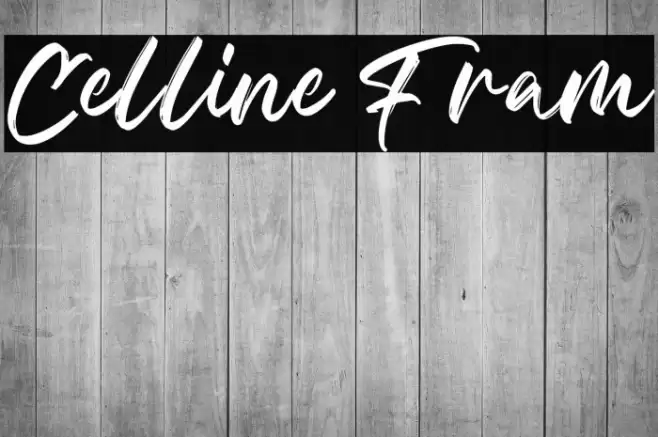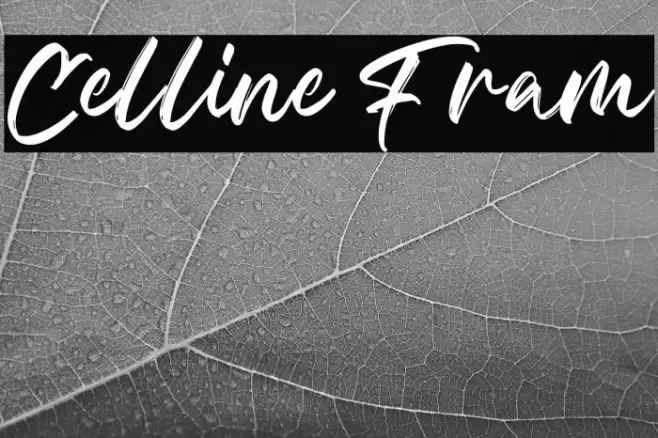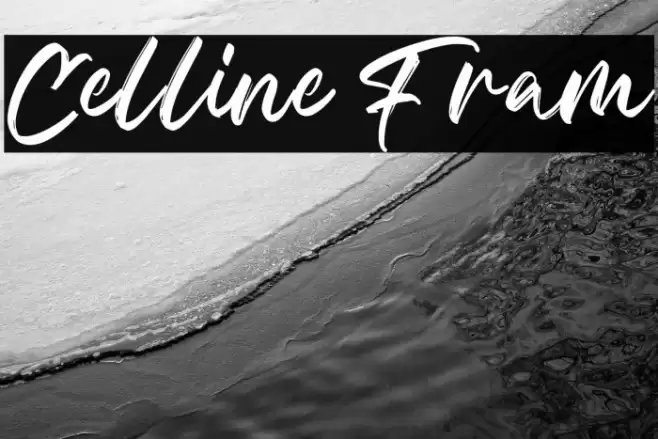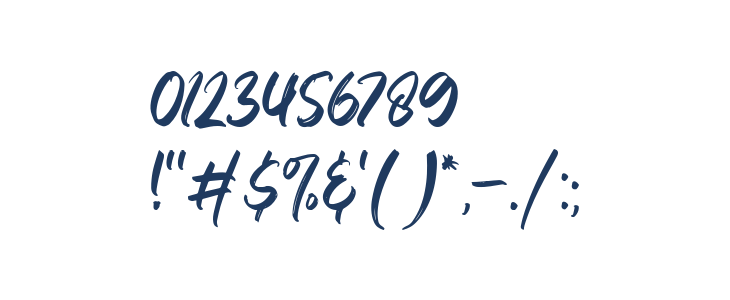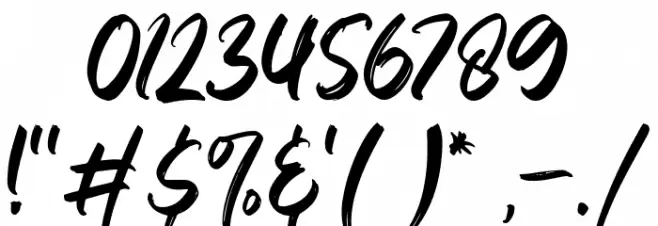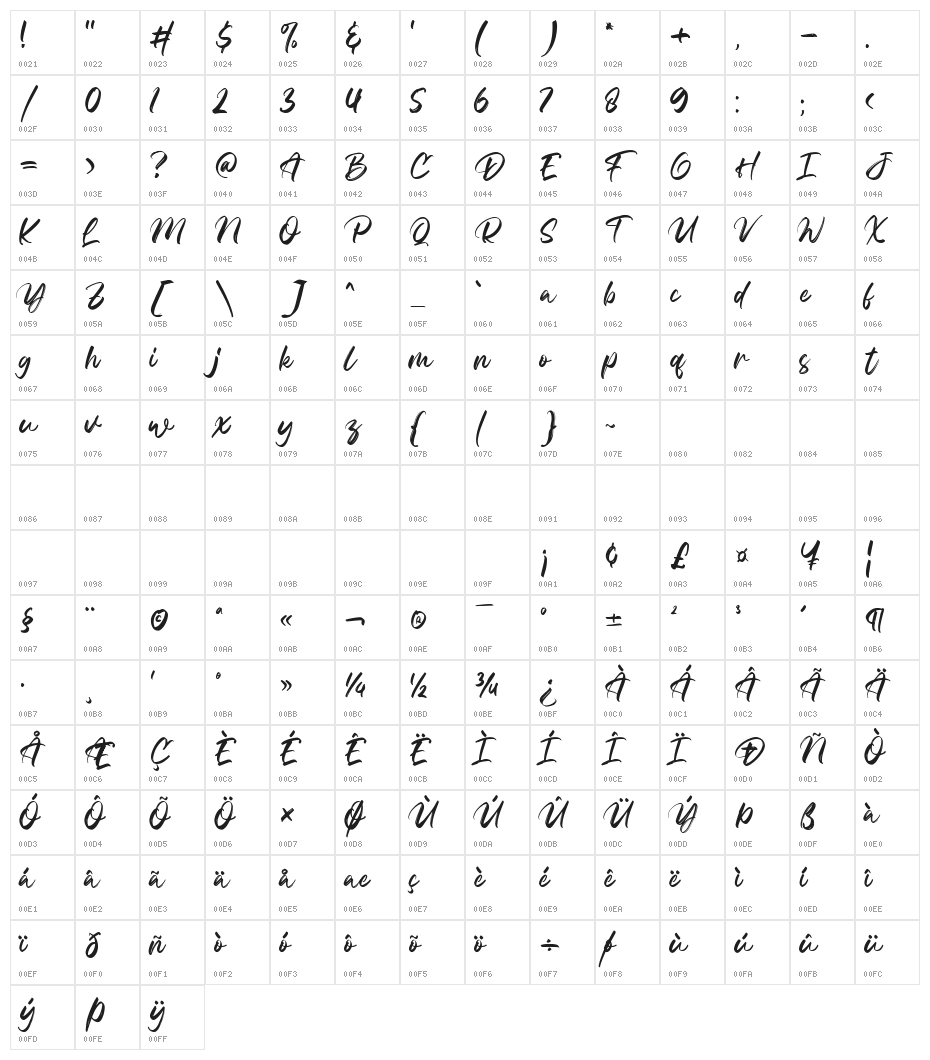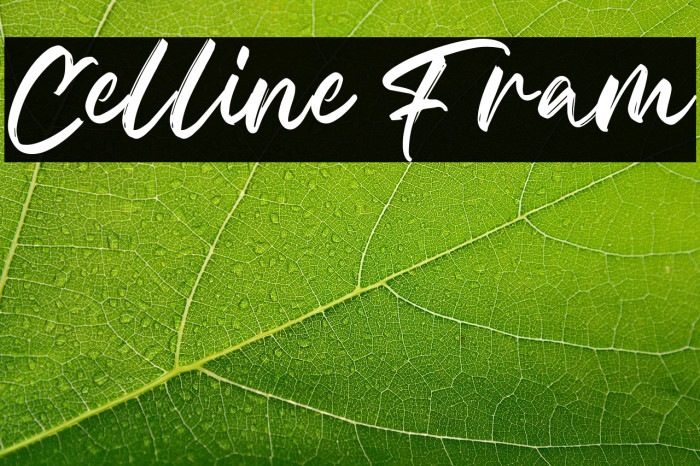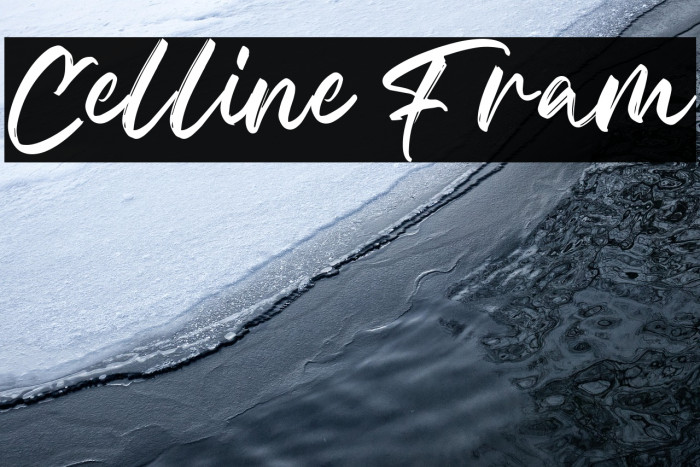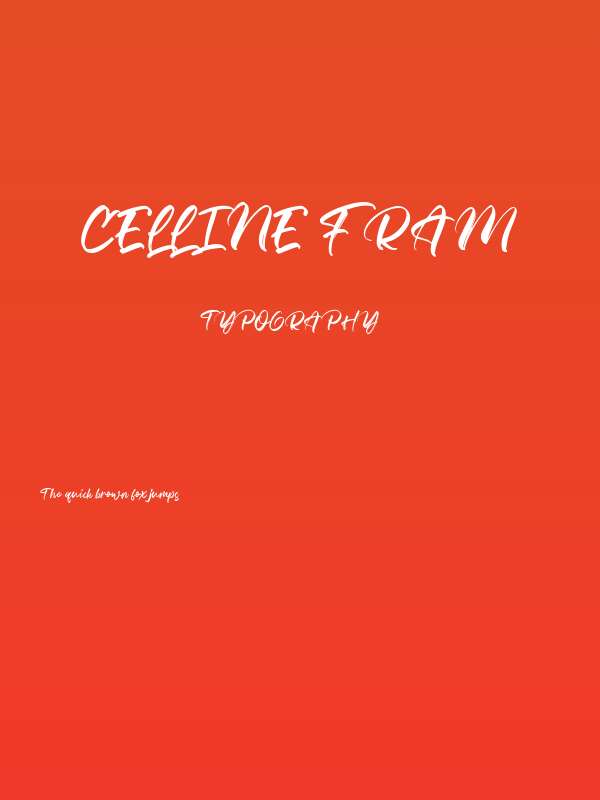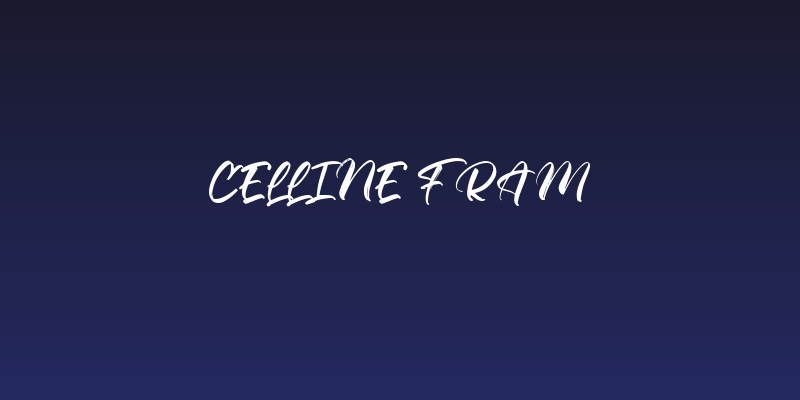
Celline Fram Font
Celline Fram Description
This font exudes a dynamic and expressive style, characterized by its fluid, brush-like strokes that convey a sense of movement and energy. The uppercase letters are bold and sweeping, with elegant curves and a slight slant that adds to their dramatic flair. The lowercase letters maintain this fluidity, with a more compact and rounded appearance, creating a harmonious balance between the two cases. The numerals and special characters follow suit, with consistent stroke widths and a playful, artistic touch. This font's overall appearance is both modern and artistic, making it suitable for creative and expressive design projects.
A dynamic, brush-style font with fluid strokes and artistic flair from Regular fonts.
- Font: Celline Fram
- Overall Style: Modern, Artistic